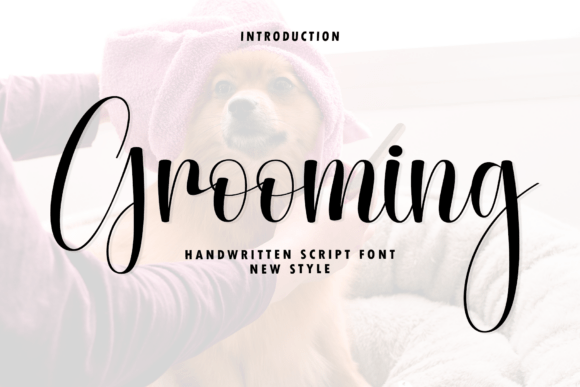
The Perfect Brush Stroke: Unveiling the Grooming Font
Have you ever been stuck in a creative rut, struggling to find the perfect font to match your vision? It’s a feeling many designers know all too well. But what if I told you that the solution lies in the elegant, fluid lines of a handwritten script font? Enter the Grooming Font, a sophisticated typeface that’s sure to elevate your designs to new heights.
This luxurious font is more than just a pretty face – it’s a versatile tool that’s perfect for a range of applications, from high-end editorial signatures to intimate event branding. Whether you’re a seasoned designer or just starting out, the Grooming Font is a valuable addition to your toolkit. With its modern, sophisticated aesthetic, it’s the perfect choice for anyone looking to add a touch of elegance to their designs.
Grooming Font Key Features
- Unique Characteristics: The Grooming Font features a unique, elegant design with subtle curves and lines, making it perfect for use in high-end fashion and beauty branding.
- Style Options: The font includes multiple style options, including Regular, Italic, Bold, and Bold Italic, allowing for a range of creative possibilities.
Grooming Font Review
Grooming Font is a beautifully designed font that’s perfect for any pet grooming or animal-related business. ✨ The font’s playful and cute aesthetic is sure to capture the attention of pet owners and make them feel at ease. The rounded edges and soft curves of the font make it feel approachable and friendly, which is exactly what you want for a business that deals with animals.
Some of the key features that make Grooming Font stand out include:
- High-quality vector graphics that ensure crisp and clear text at any size
- Complete Unicode support, making it suitable for use in a variety of languages
- Customizable font weights and styles to suit your design needs
- ⚠️ The font may not be as versatile as other fonts on the market, making it less suitable for use in a wide range of design projects
- ⚠️ Some users may find the font’s cute aesthetic to be too childish or unprofessional for certain applications
Overall, I would recommend Grooming Font for anyone looking for a fun and playful font to use in their pet grooming or animal-related business. While it may have its limitations, the font’s unique aesthetic and high-quality design make it a great choice for anyone looking to stand out in a crowded market.
Tips for Getting the Most Out of Grooming Font
Here are some tips for getting the most out of the Grooming Font:
– Use it for headings and titles to add a touch of elegance.
– Pair it with other fonts to create a unique and eye-catching design.
– Experiment with different font sizes and colors to create visual interest.
The Grooming Font is commonly used for:
– Beauty and wellness branding.
– Fashion and lifestyle design.
– Luxury and high-end marketing materials.